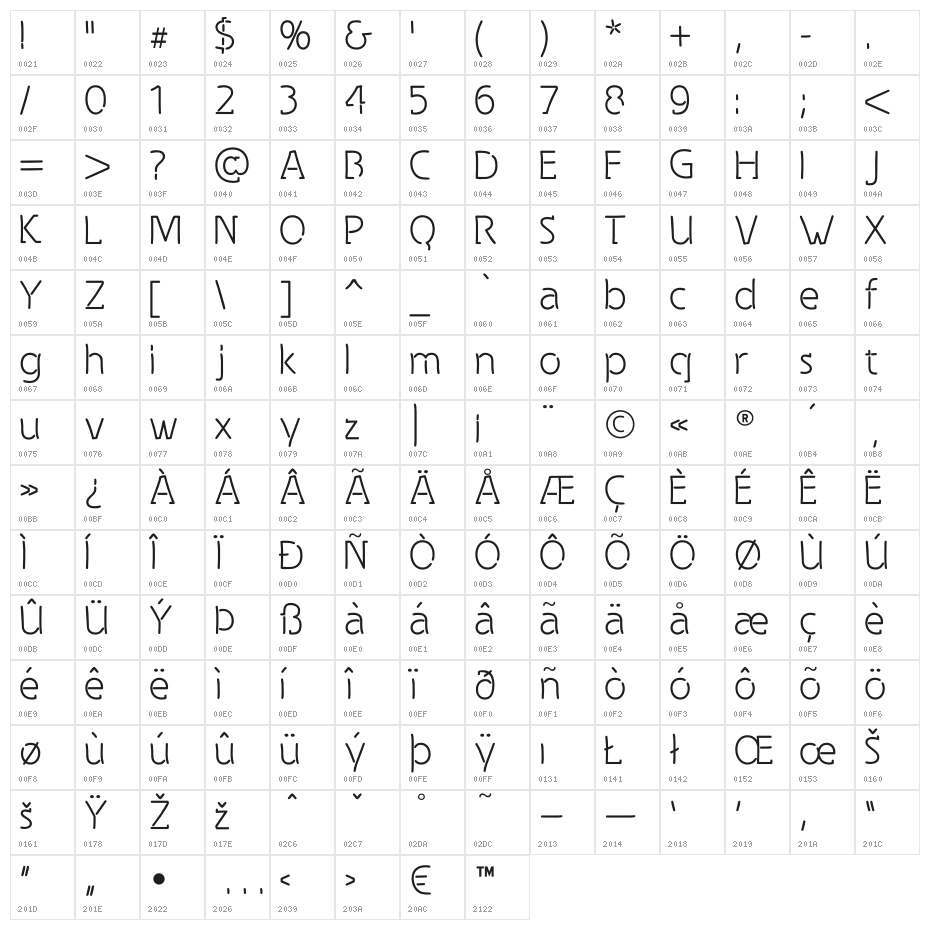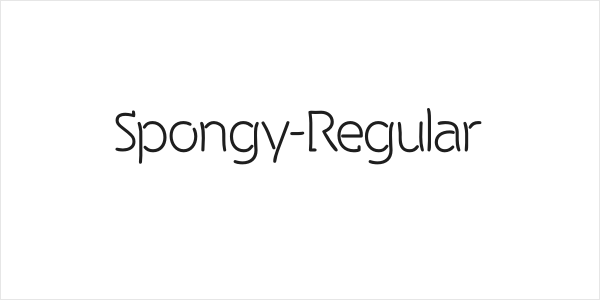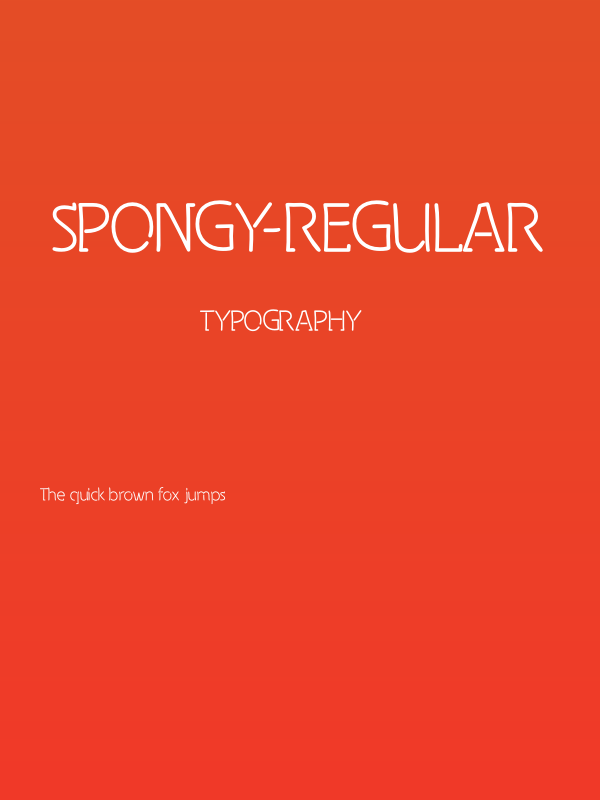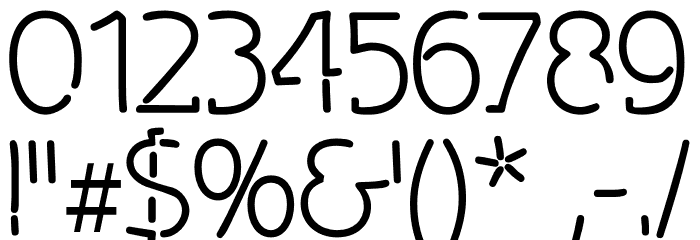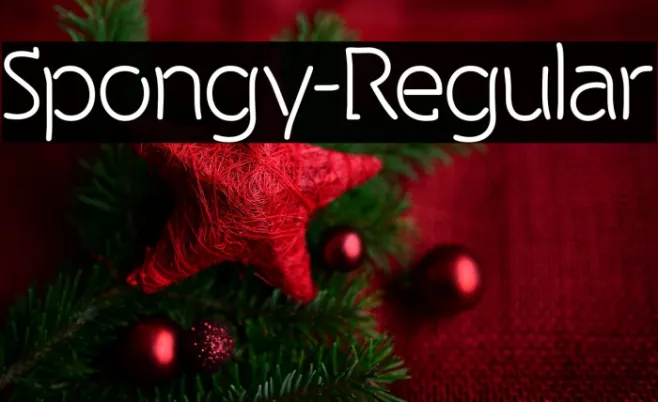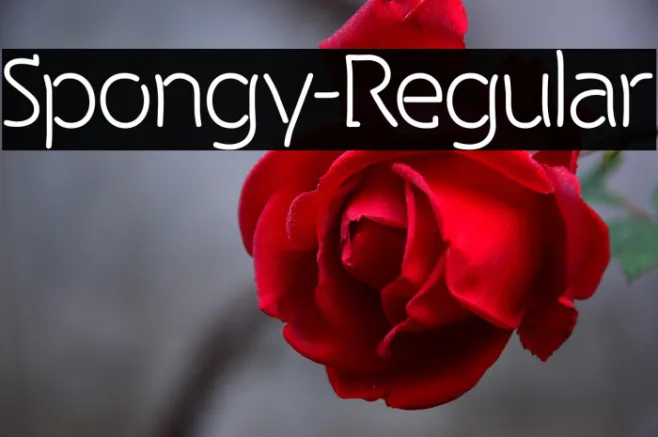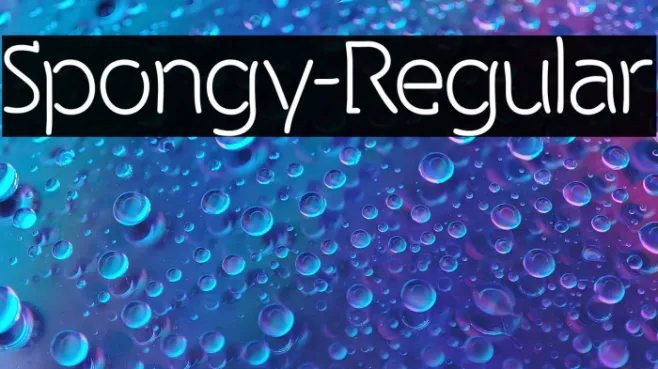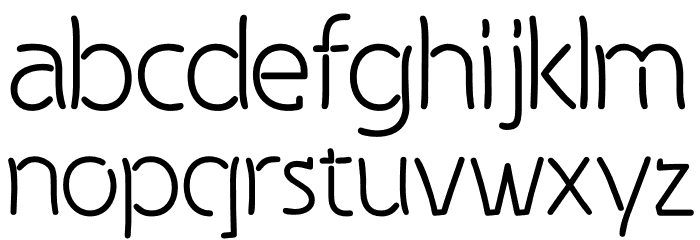
Spongy-Regular Font
Spongy-Regular Description
This font features a playful and rounded design, characterized by its smooth curves and slightly irregular shapes that give it a whimsical, hand-drawn appearance. The letters are evenly spaced, with a consistent stroke width that maintains readability while adding a touch of personality. The uppercase letters are bold and prominent, while the lowercase letters maintain a friendly and approachable feel. The numerals and special characters are designed to match the overall style, ensuring a cohesive look across all text elements. This font's unique style makes it suitable for projects that require a fun and informal tone.